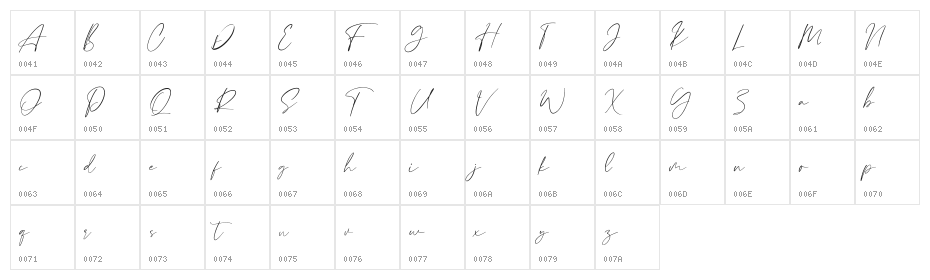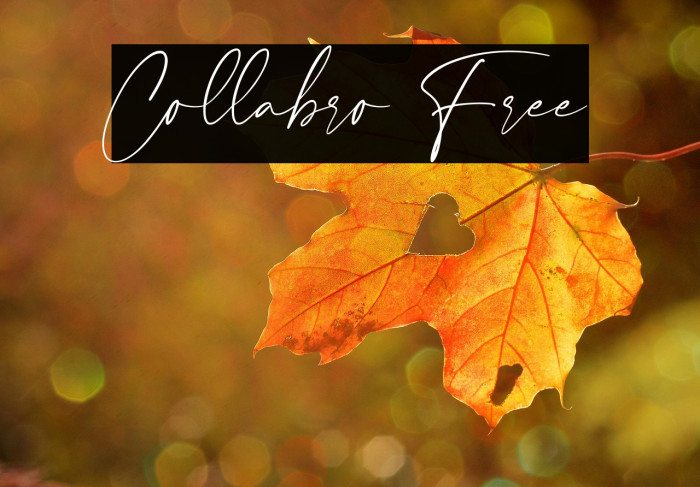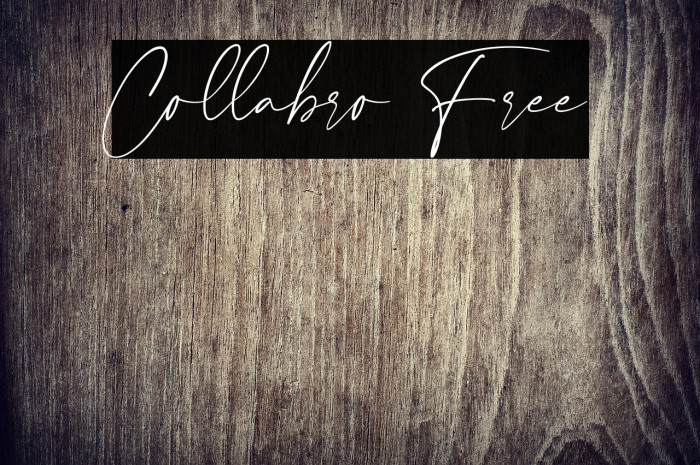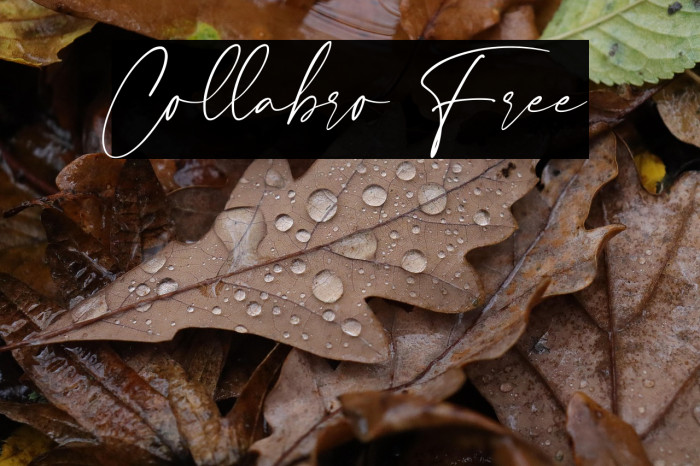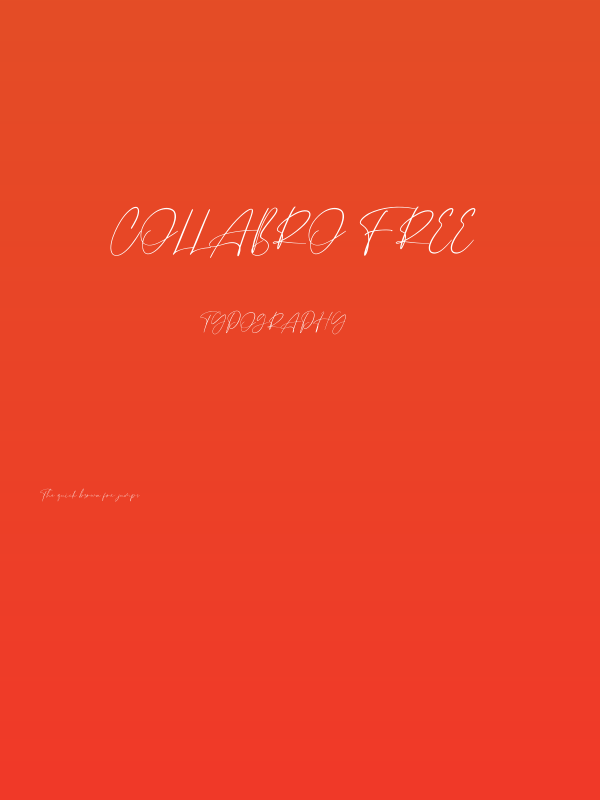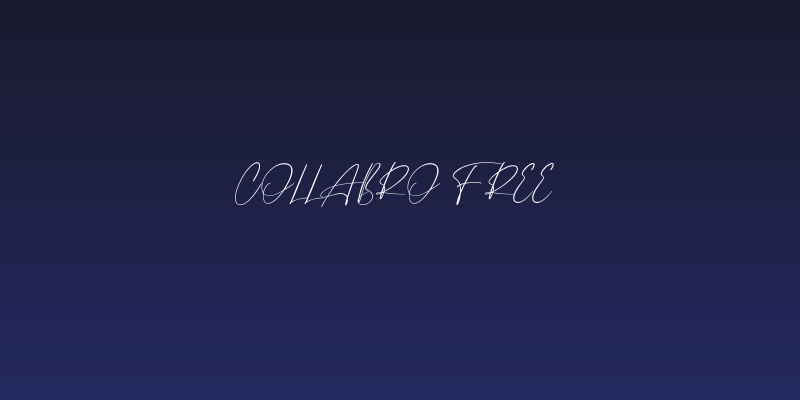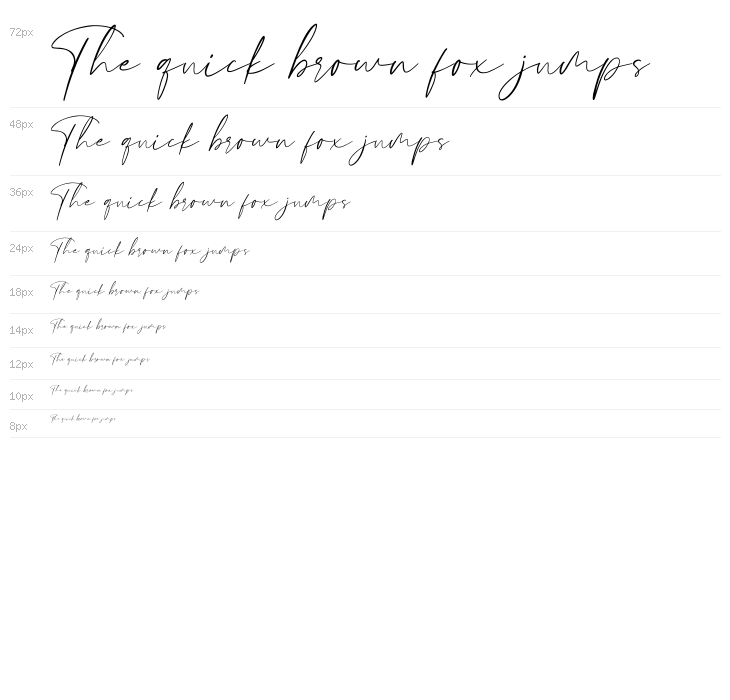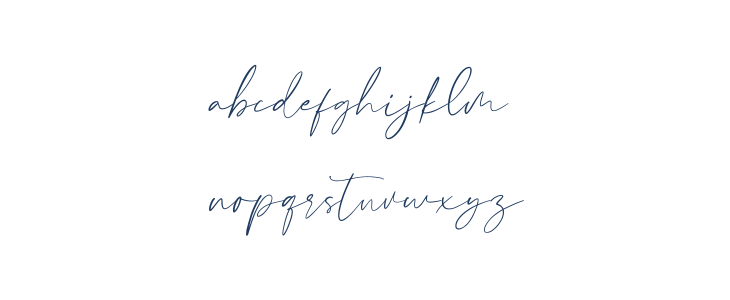
Collabro Free Font
Collabro Free Description
This font features an elegant and flowing script style, characterized by its smooth, cursive letterforms that mimic natural handwriting. The strokes are thin and delicate, with a slight variation in thickness that adds a touch of sophistication and grace. The uppercase letters are particularly ornate, with sweeping curves and loops that give them a decorative flair. The lowercase letters maintain a consistent style, complementing the uppercase with their own subtle flourishes. This font exudes a sense of elegance and is perfect for projects that require a personal, handwritten touch.